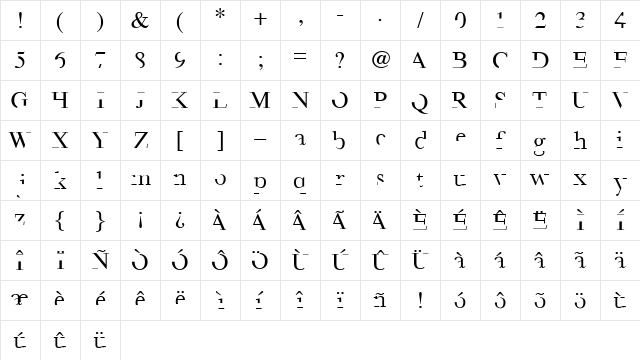
Minimal Regular
| Foundry | Daniela Cervantes |
Design Context for Minimal Typeface
Minimal is a composed and adaptable typeface that performs quietly and consistently across a wide range of design contexts.